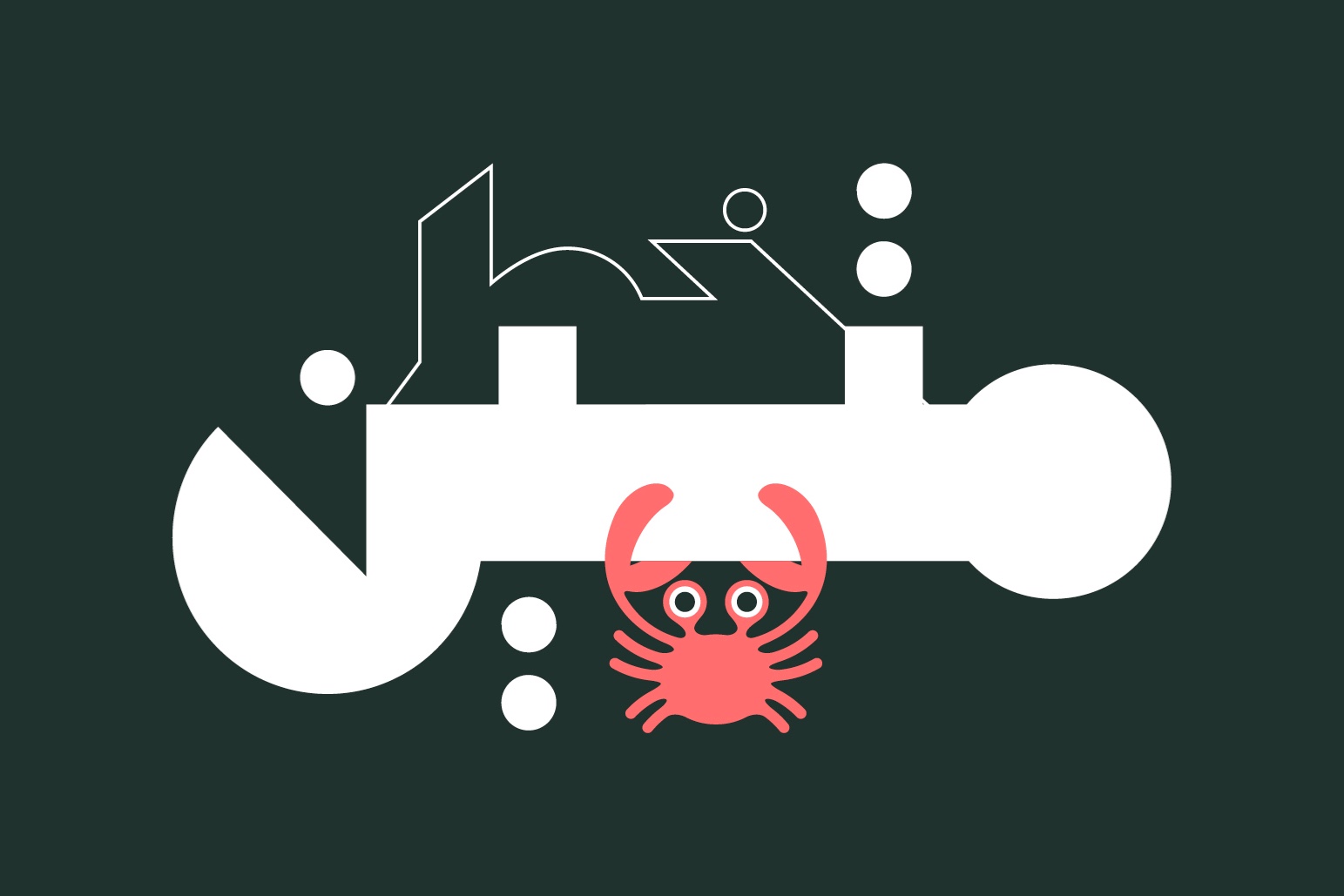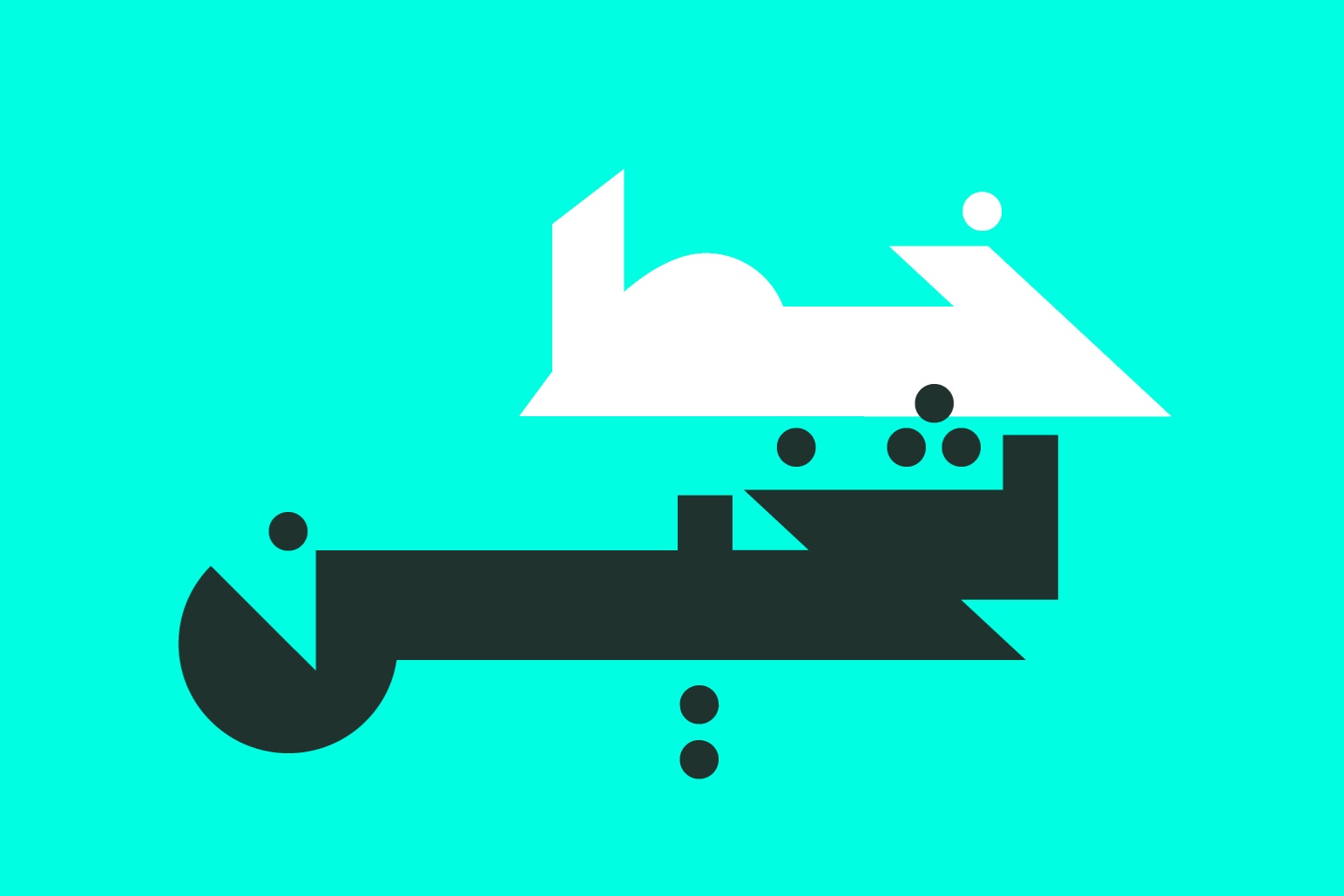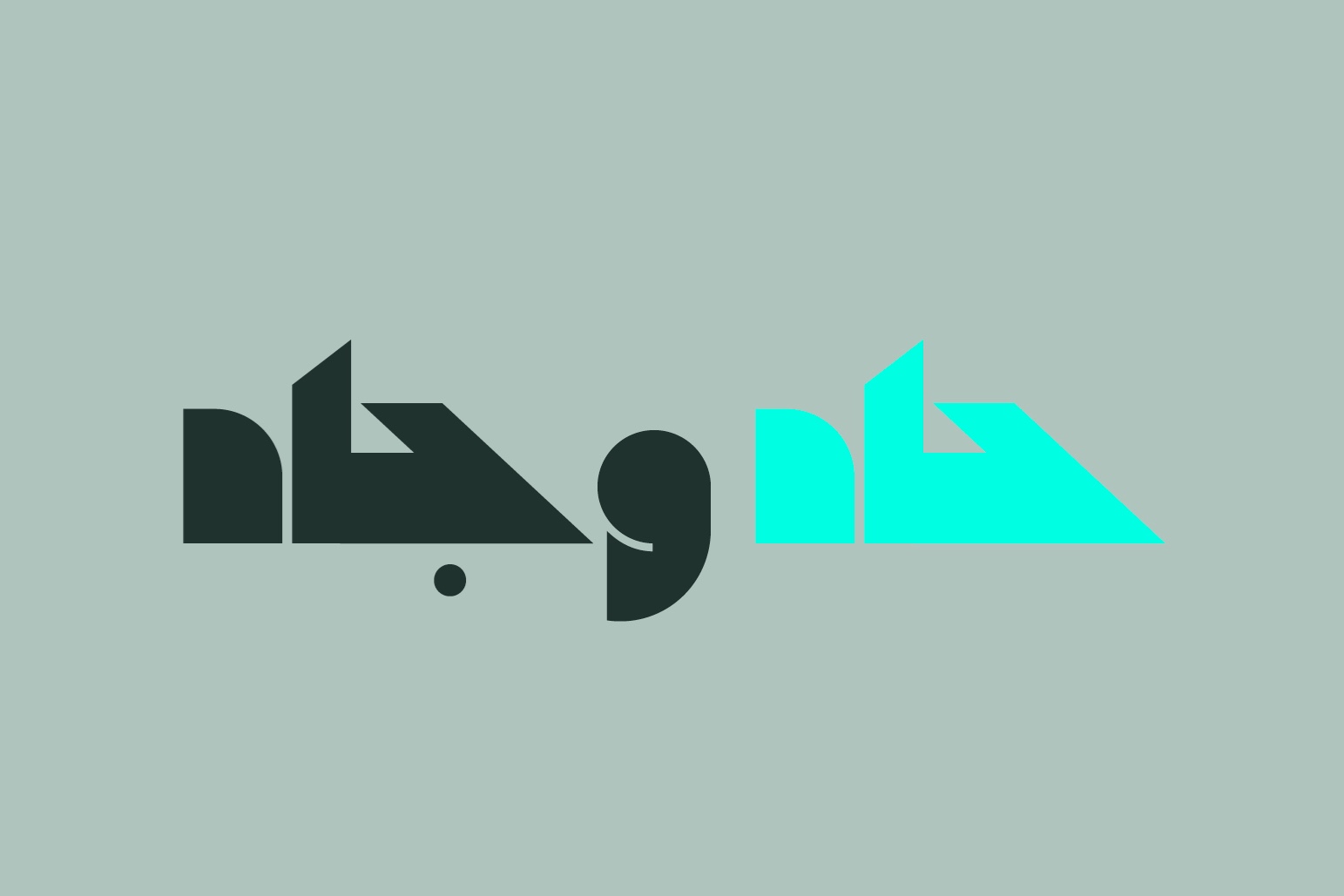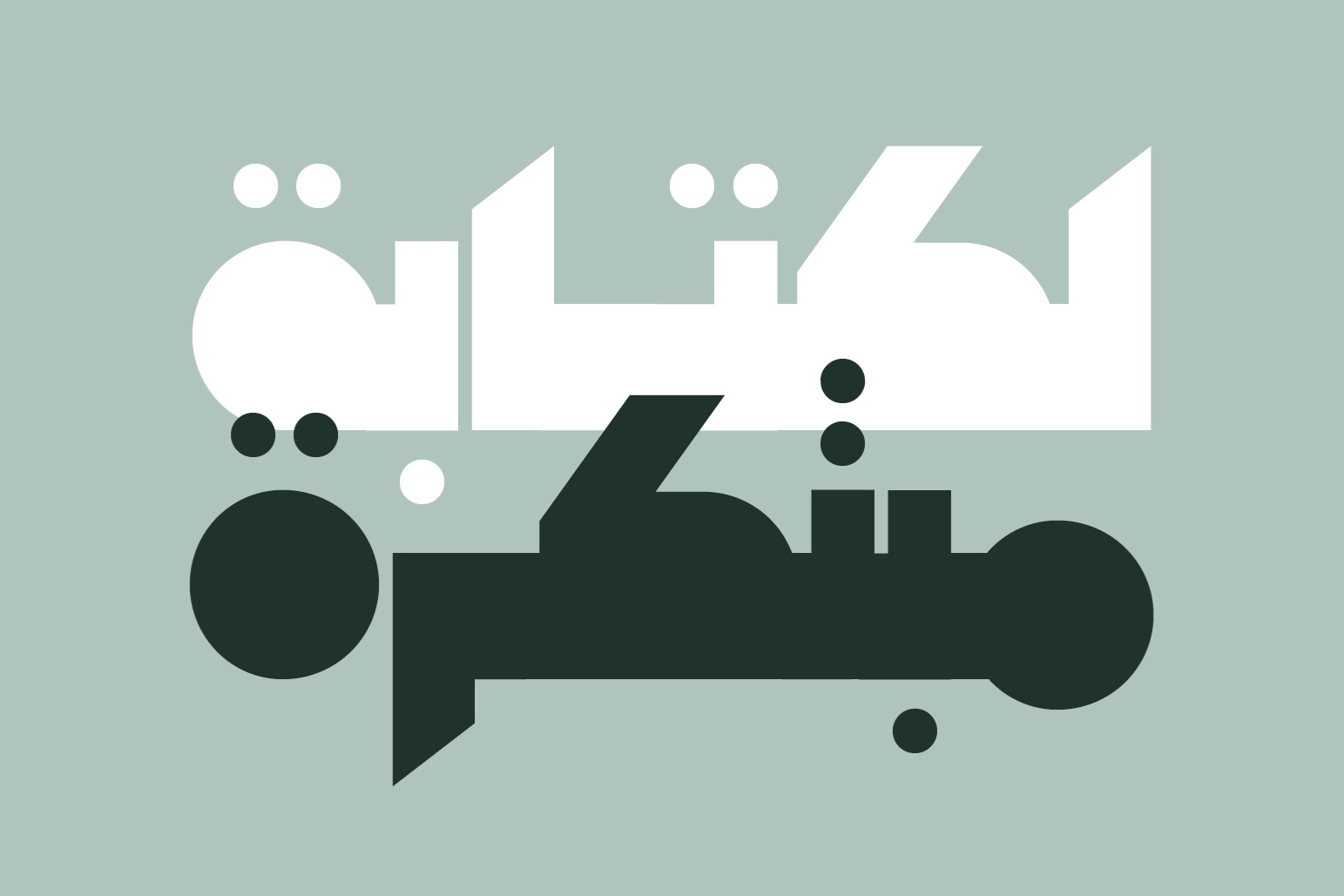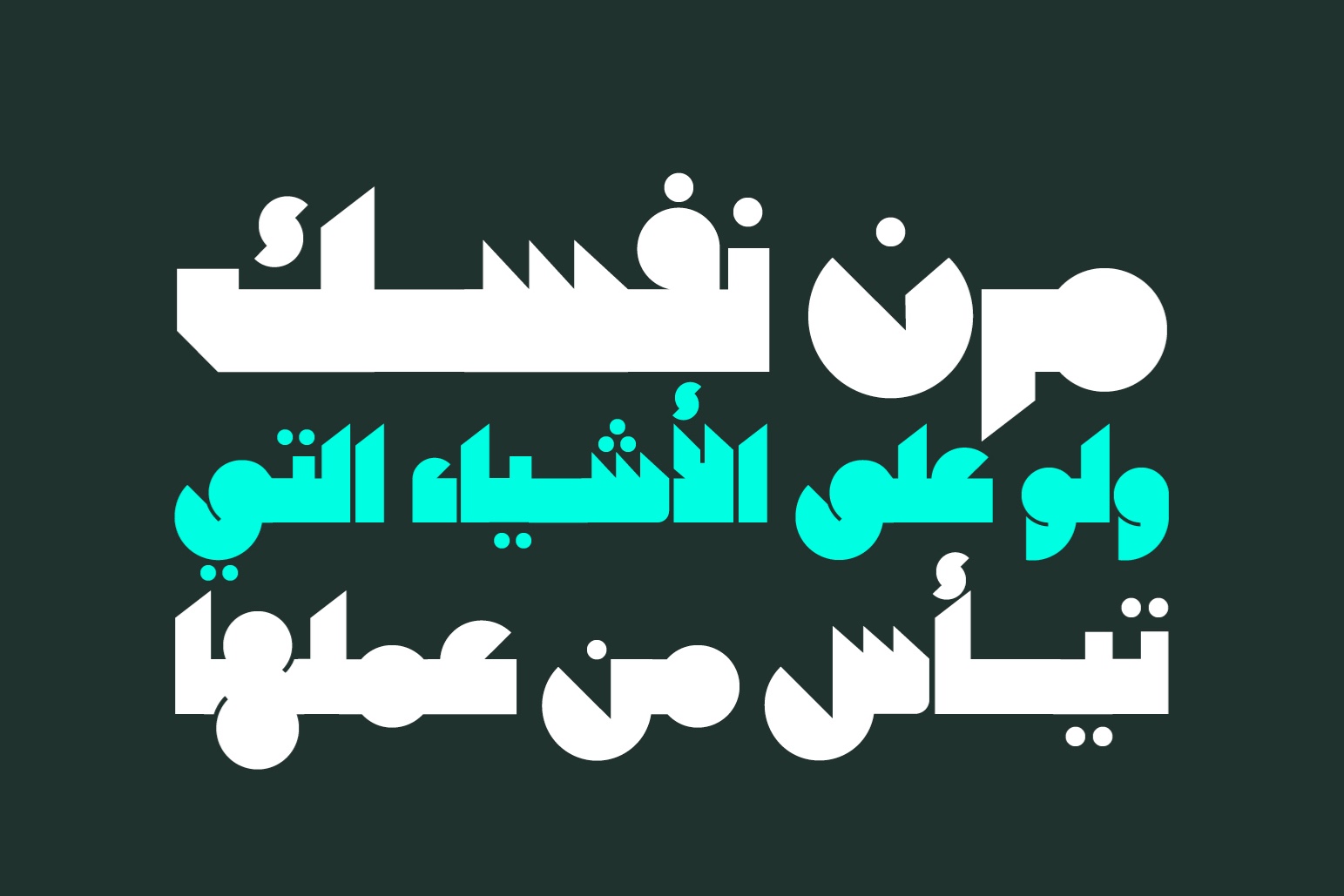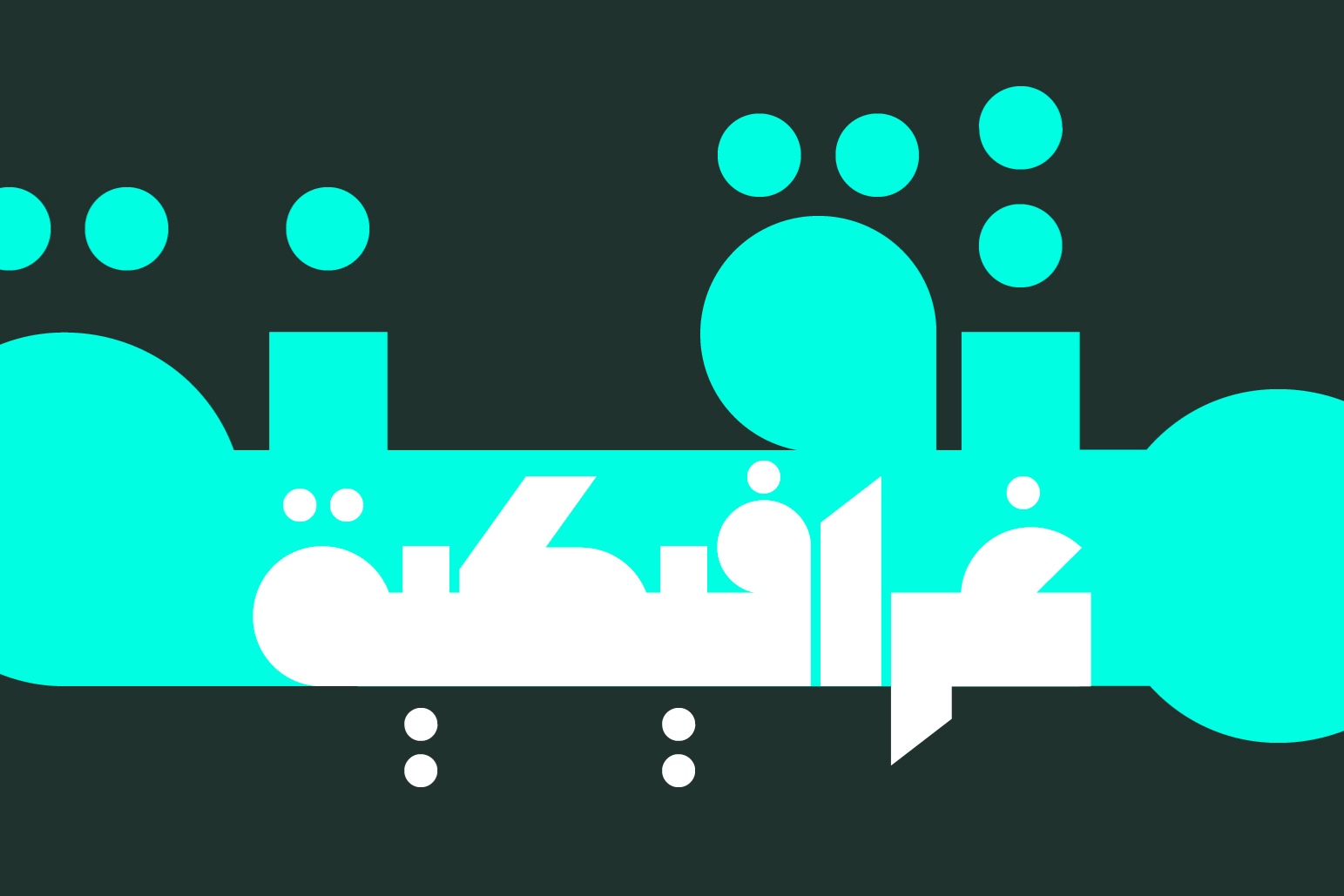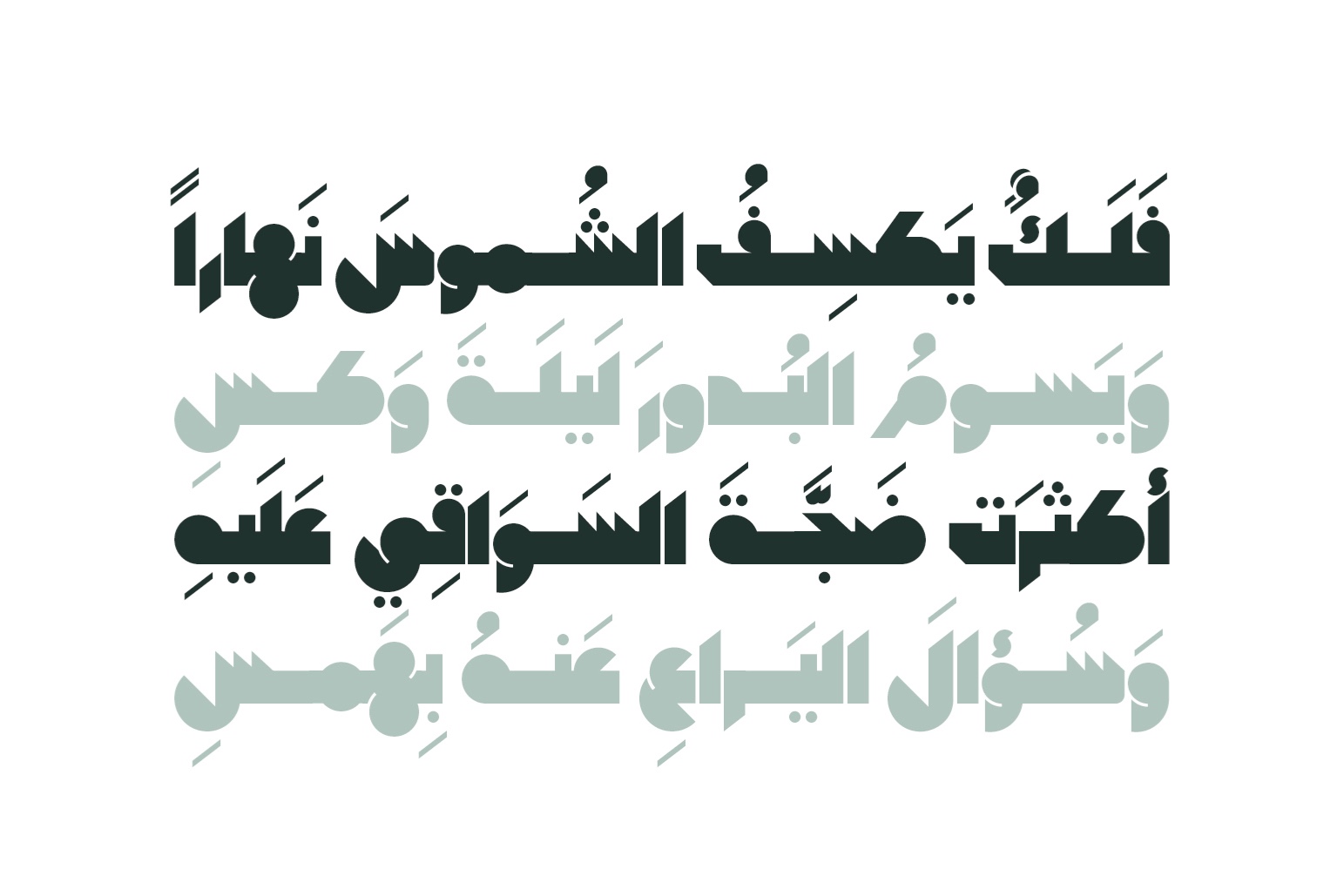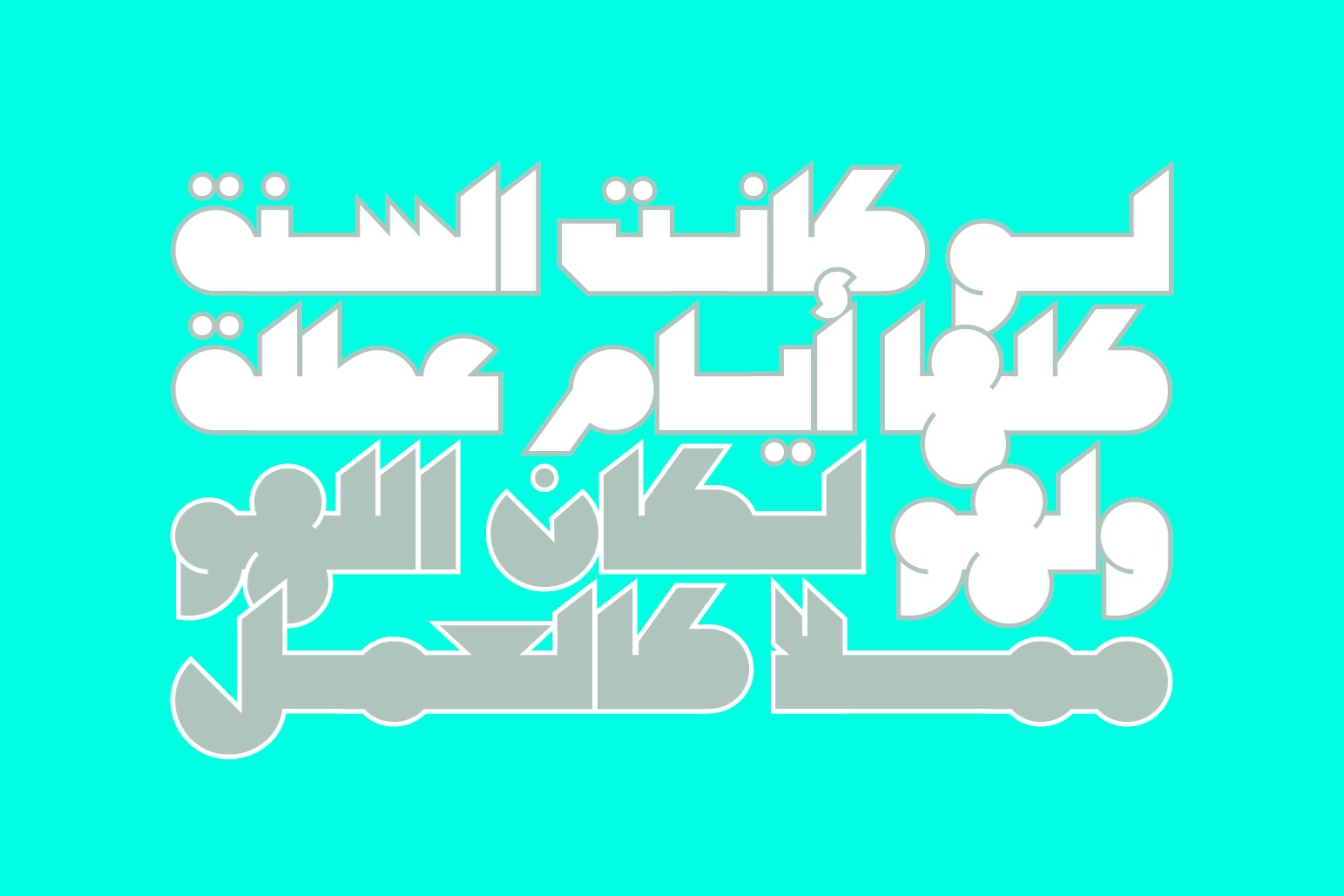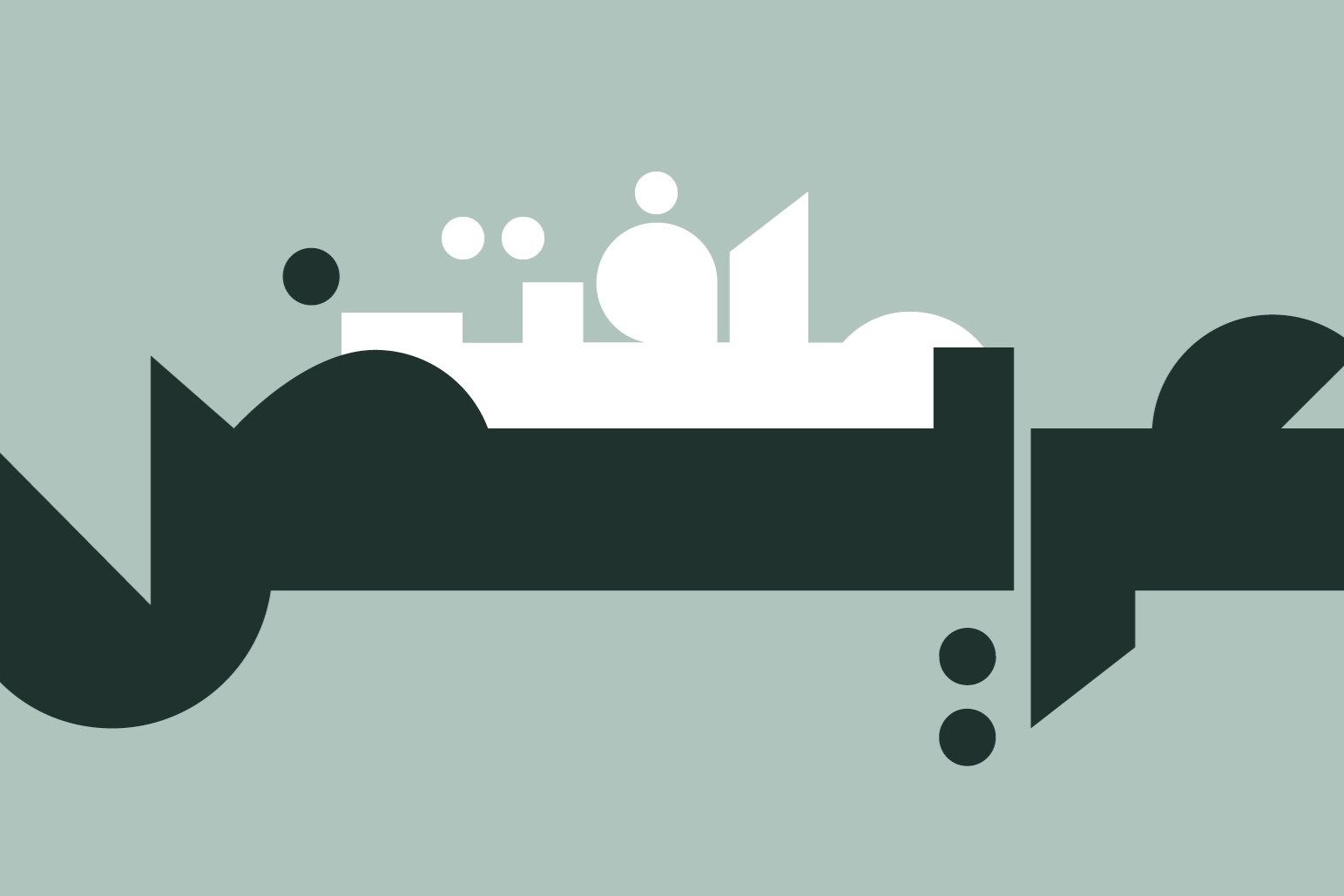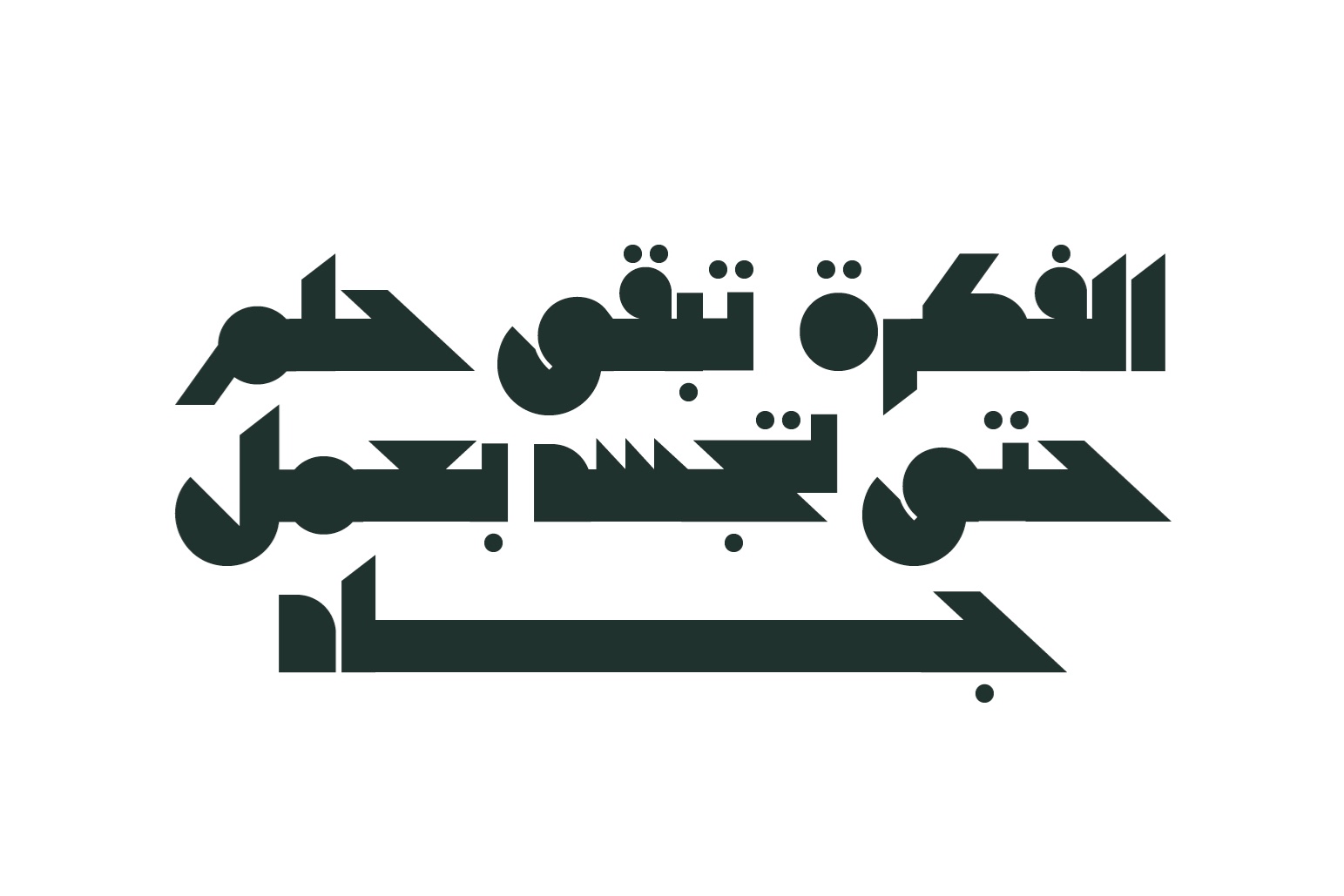
Mateen (derived from the Arabic word for “Durable”) is a display typeface distinguished by its bold, angular letterforms. Its design draws inspiration from Arabic writing styles that defined advertising in the 1970s and 1980s. Mateen is ideal for creative titles across diverse applications, including web design, print advertising, publishing, and mobile interfaces.